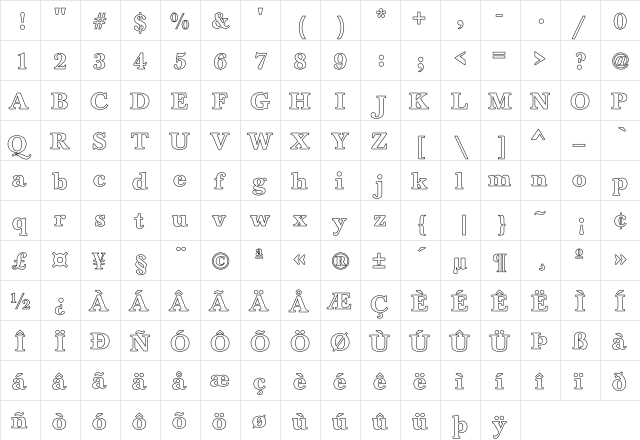
NewBaskerville-Bold Hollow Regular
Design Context for NewBaskerville-Bold Hollow Typeface
NewBaskerville-Bold Hollow takes a measured approach to typography — its balanced proportions and neutral character make it a reliable workhorse for both digital and print work. The heavy weight commands attention and anchors typographic hierarchies.